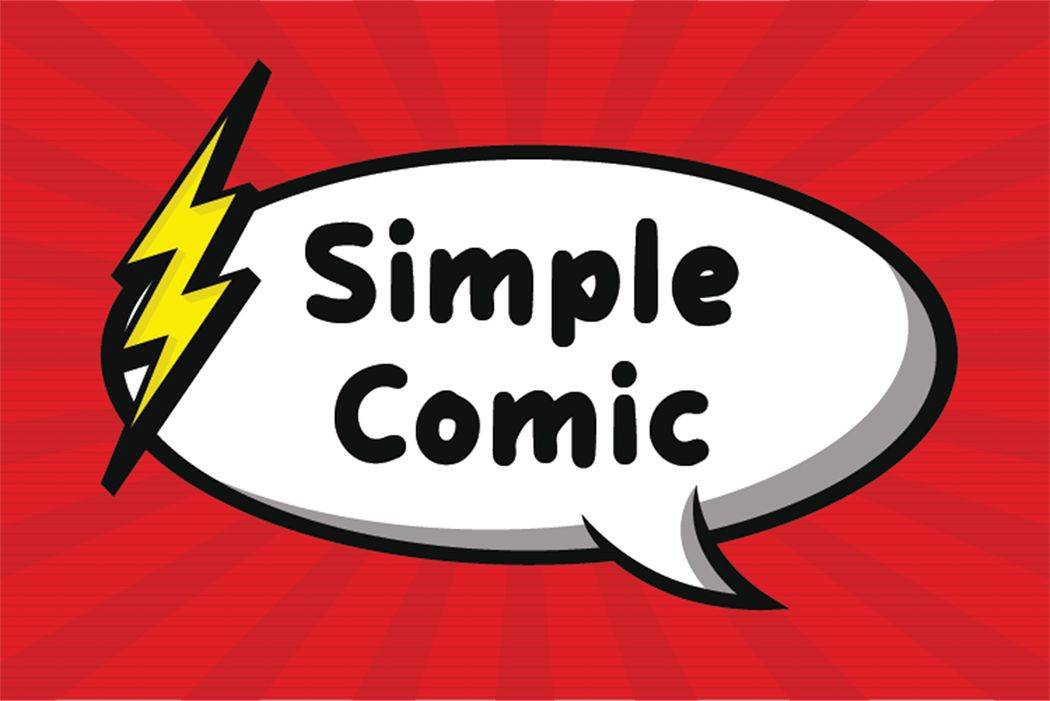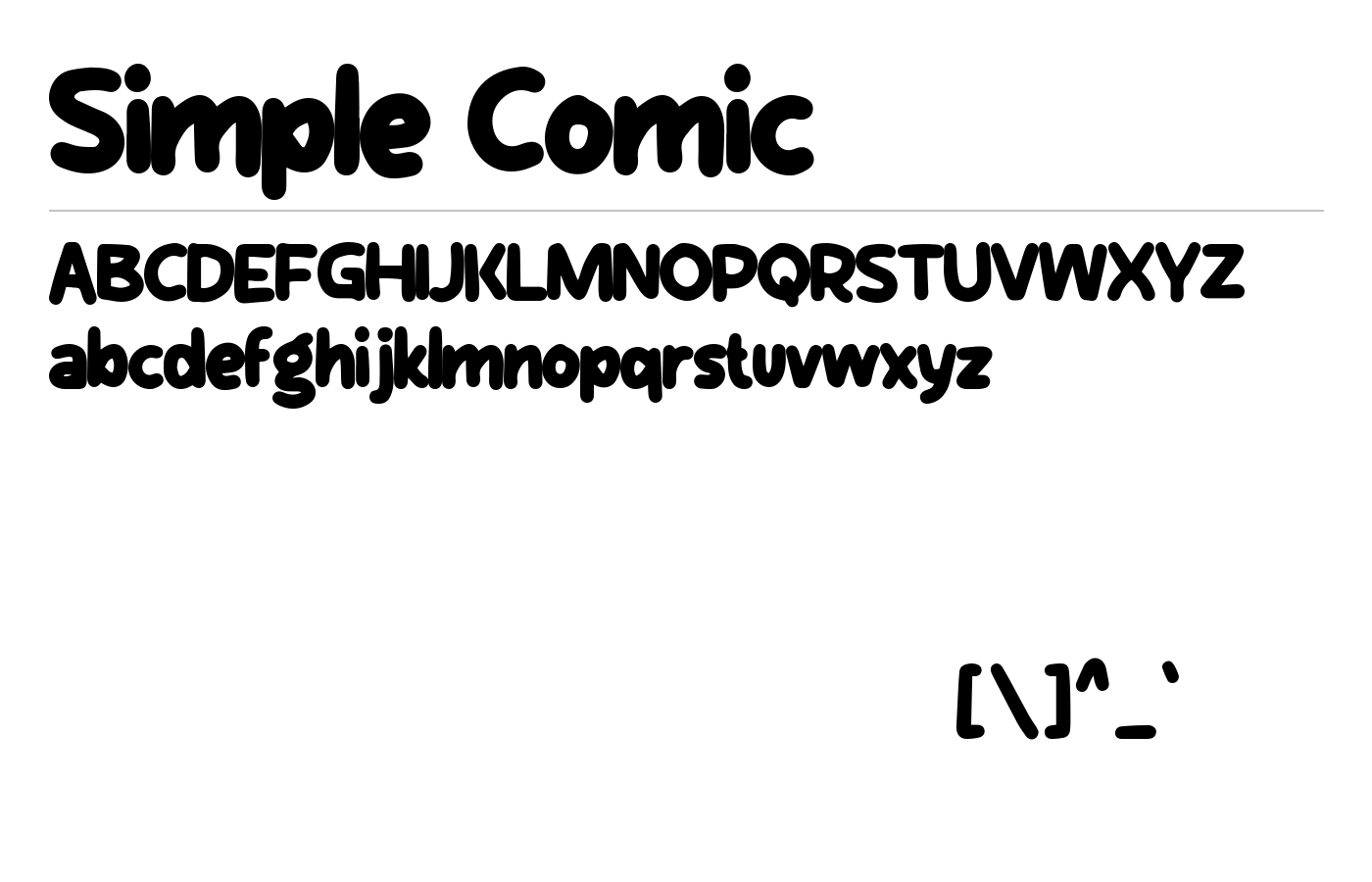
Simple Comic is a playful, rounded sans serif font with a casual and friendly vibe, characterized by its bold weight and uniform stroke width. Its bubbly, cartoon-like letterforms and generous spacing make it ideal for informal and fun designs, perfect for children’s books, comic strips, or casual branding that aims to feel approachable and cheerful. This font works best in headlines, logos, and creative projects that benefit from a lighthearted and whimsical touch.
Simple Comic Font
About Simple Comic Font